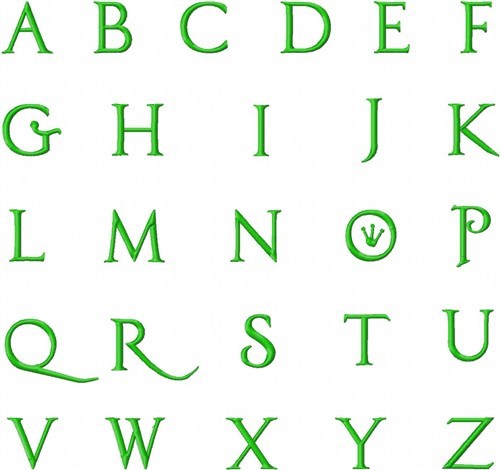
Frog Prince Embrilliance Embroidery Font - Whimsical Decorative Letters - BX font by Unicorn Creatives and other embroidery fonts available at EmbroideryDesigns.com.
Unicorn Creatives is happy to present Frog Prince Embrilliance Embroidery Font - Whimsical Decorative Letters - BX font machine embroidery font which has Decorative machine embroidery font ideal for playful projects, featuring 'FROG' in green and 'PRINCE' in soft orange. Great for children's apparel or accessories. Available in BX font and other Embrilliance formats. included. If you would like to view more embroidery fonts and alphabets please search our embroidery fonts page.
Frog Prince Embrilliance Embroidery Font - Whimsical Decorative Letters - BX font